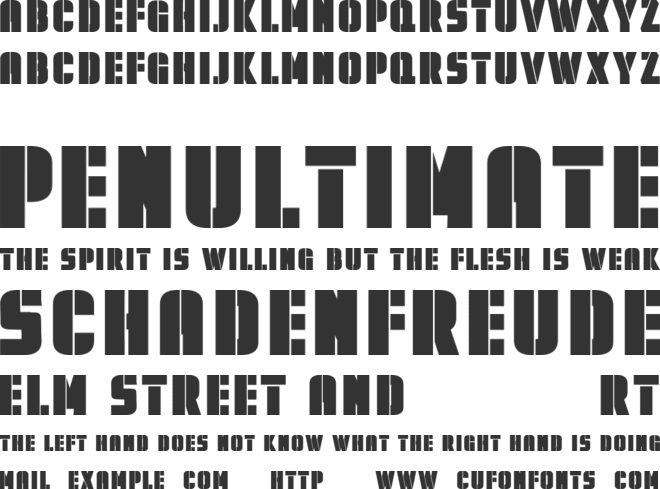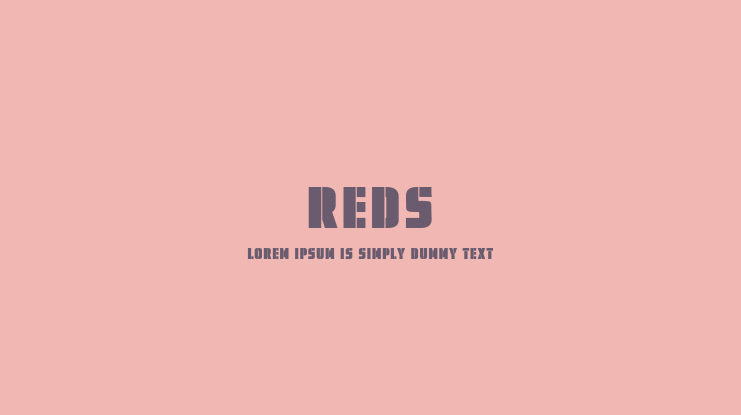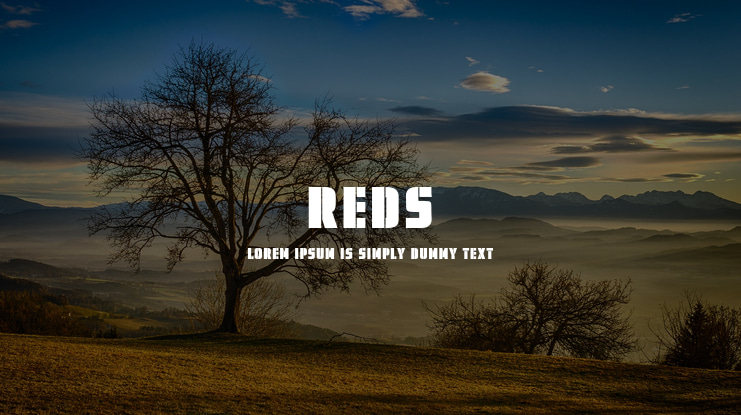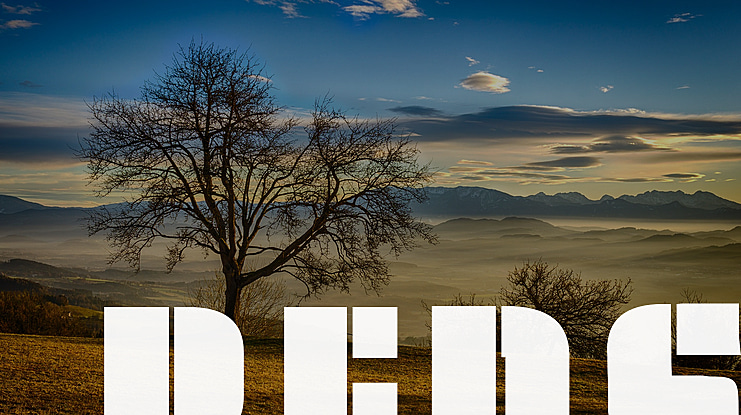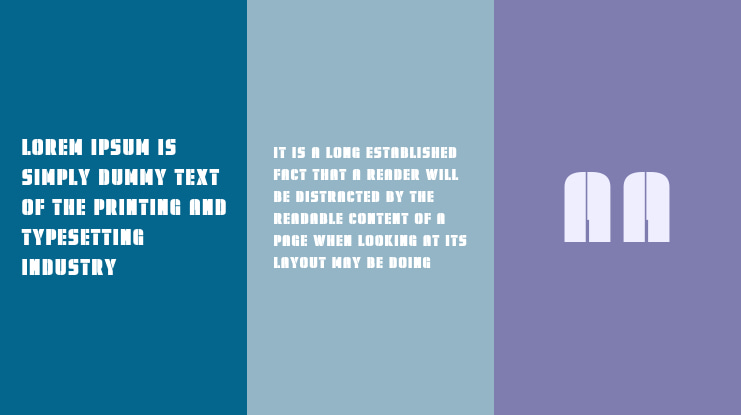
REDS Font
P.A.Vannucci
Directly from the film directed and starring Warren Beatty, the unpublished font for all admirers of the film.
Direttamente dal film diretto e interpretato da Warren Beatty, il font inedito per tutti gli estimatori del film.